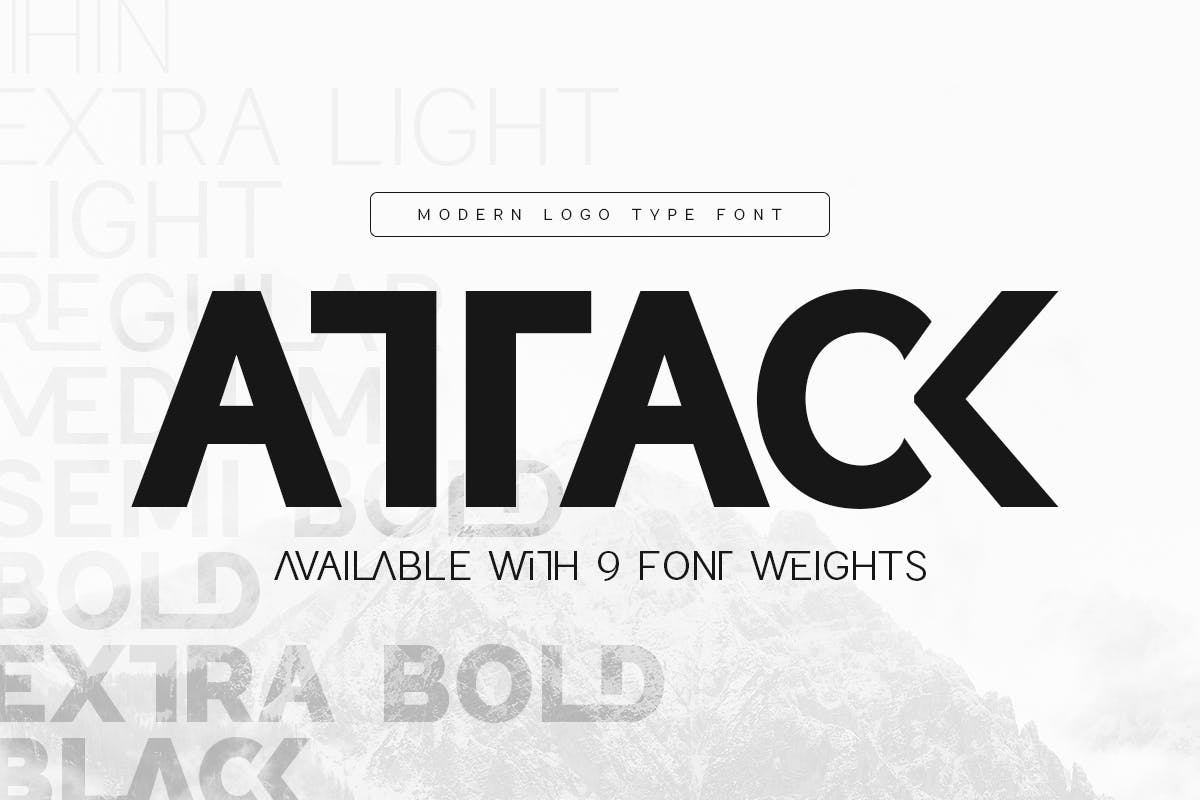
Attack - Corporate Logo Font
The Attack - Corporate Logo Font is perfect for powerful corporate identities, dynamic tech company logos, aggressive sports team branding, bold financial services design, commanding automotive branding, strong industrial company logos, impactful consulting firm materials, assertive startup identities, competitive gaming logos, and authoritative business communications.
What makes the Attack - Corporate Logo Font so exciting is its commanding presence and aggressive design language that instantly communicates strength, determination, and corporate dominance. This powerful typeface features sharp geometric construction, bold letterforms, and strategic angular elements that create an unmistakable authority perfect for businesses demanding immediate recognition and respect. The font's assertive character and professional edge make it an outstanding choice for companies seeking to project confidence, leadership, and competitive advantage in their market sector.
The Attack - Corporate Logo Font family includes comprehensive weight variations, featuring Light, Regular, Medium, Bold, and Heavy options, plus condensed and extended versions. Each variation maintains the signature aggressive appeal while offering different levels of visual intensity and spatial efficiency, providing designers with complete flexibility for creating powerful brand hierarchies and impactful corporate communications.
The strategic design elements of Attack - Corporate Logo Font demonstrate expert corporate typography engineering, with each character optimized for maximum impact and brand recognition across all applications. The font's comprehensive character set includes international language support, professional punctuation, corporate symbols, and trademark characters, ensuring complete functionality for global business operations and legal compliance.
Specifically engineered for corporate applications, this remarkable font maintains perfect clarity and commanding presence across all business formats and media. From executive presentations to large-scale corporate signage, Attack - Corporate Logo Font performs exceptionally while preserving its distinctive aggressive character and professional authority.